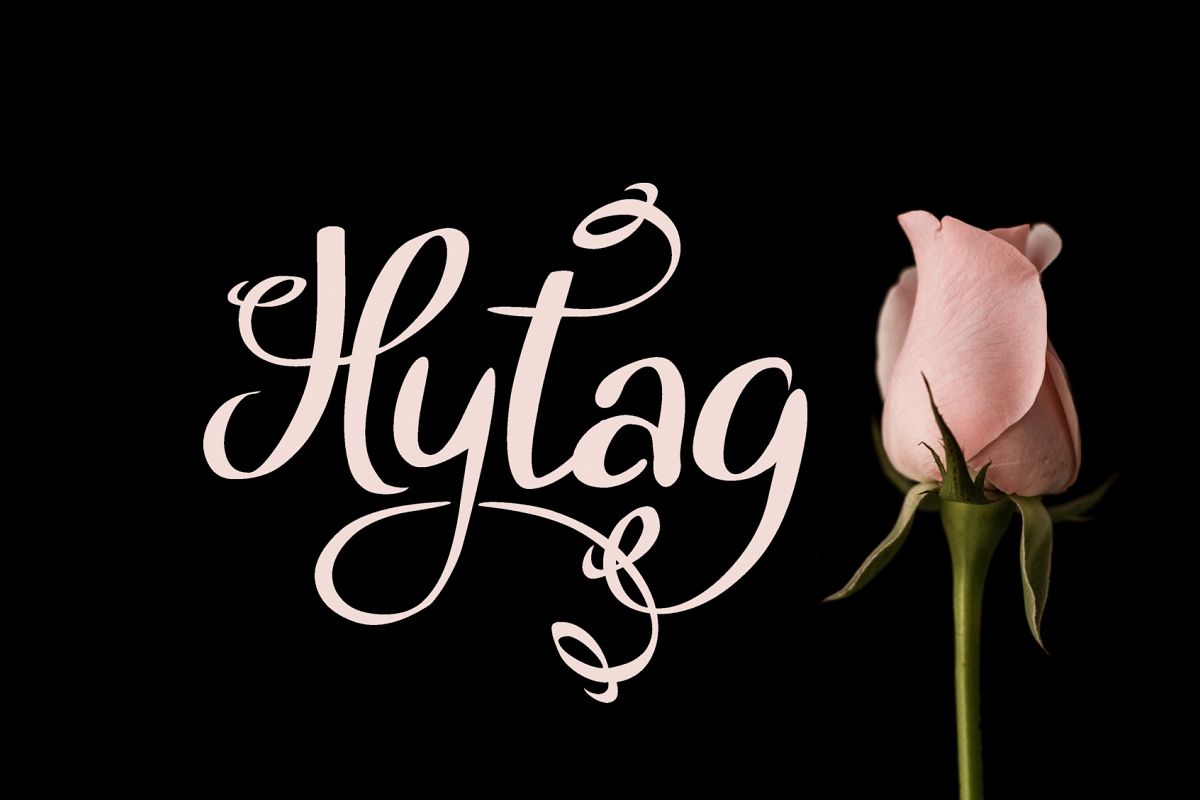
Hytag font
Hytag-Regular
Introducing Hytag handwritten typeface
Hytag is perfect for cards, wedding stationeries, packaging, branding projects, wedding stationeries, scrapbooking and homeware designs - or simply as a text overlay to any background image.